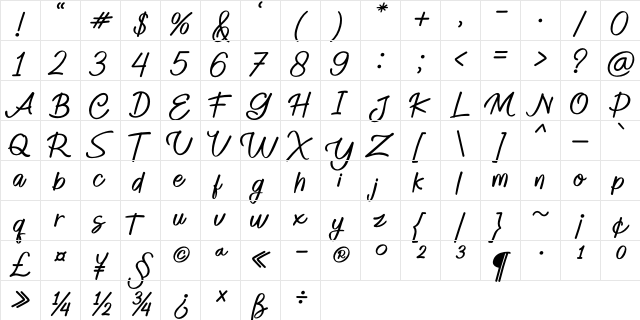
Smille Regular
Design Context for Smille Typeface
Smille is a composed and adaptable typeface that performs quietly and consistently across a wide range of design contexts.